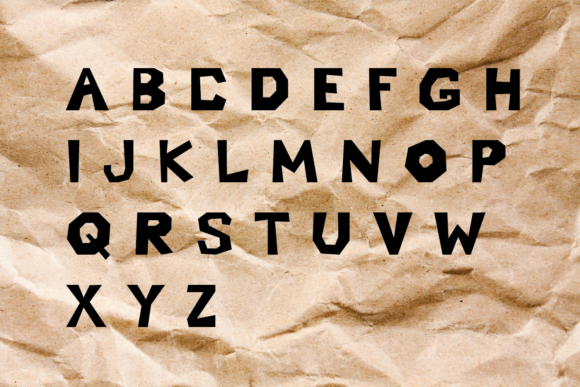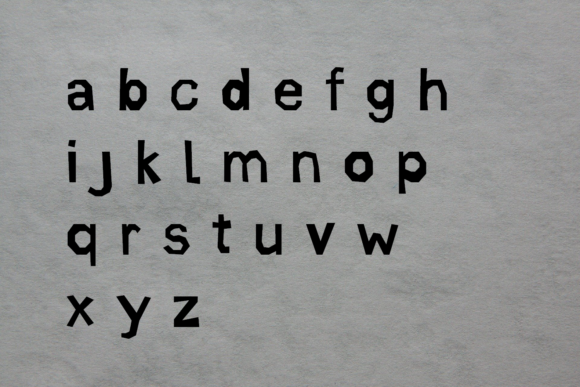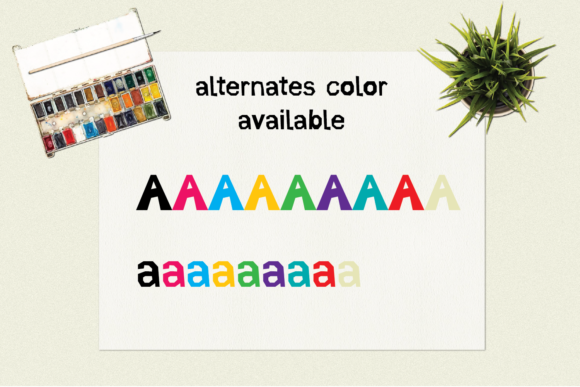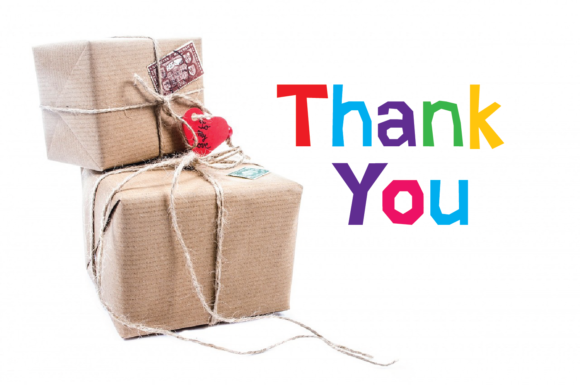
About Cut out Paper Font
Cut Out Paper is a crafting themed color font with a cut out paper style, including uppercase and lowercase, numeric and punctuation.
This color font has 8 alternates color for the uppercase and lowercase glyphs. This font is PUA encoded which means you can access all of the glyphs with ease!